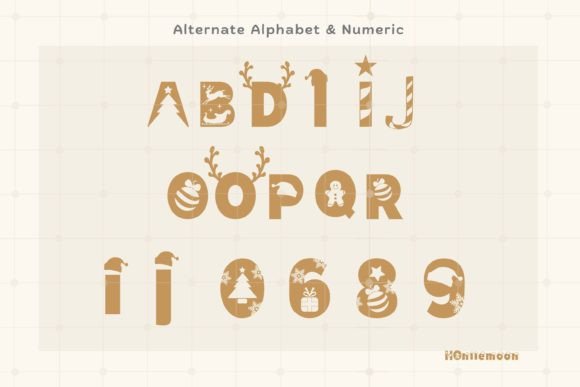
Christmas Gift Font
Christmas Gift is a cool and fun decorative font. It looks both cute and jolly and it will enhance each of your designs. The only limit is your imagination. Add this colorful and bold decorative font to each of your creative ideas and notice how it makes them come alive!